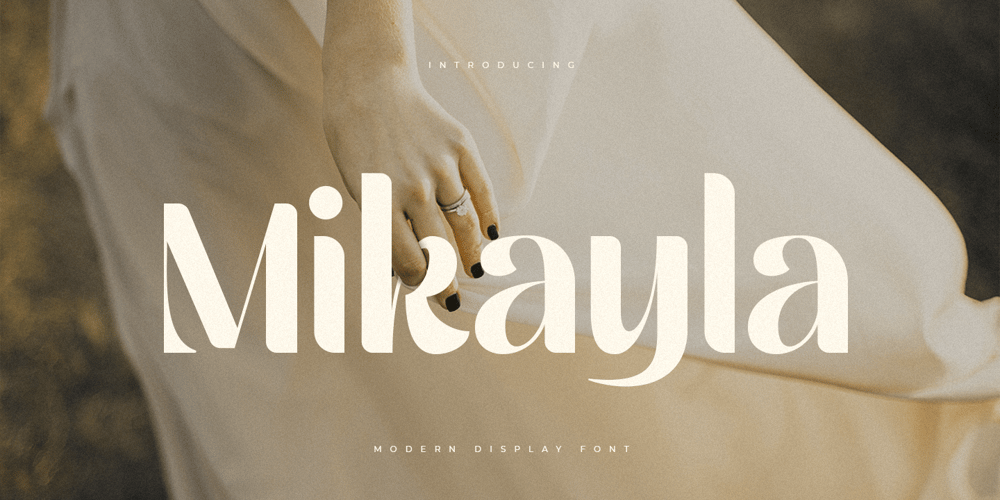
Mikayla Style Font Family was designed by Zamroni Hamzah and published by Sensatype Studio. Mikayla Style contains 1 styles and family package options. Mikayla is a Modern Display FontA new font that we created special for branding needs, with unique characters and awesome alternative characters are ready to add value of your brand. It so nice to leverage designer or product owner that need solutions to make their design look more beauty and modern. And specially for Salute font, We prepared any swash and any alternate characters to help you create unlimited variations for your creative needs.Mikayla is a Modern Display Font ready with: Any options to get creative variations (combination of Alternate and Ligature) Preview as a inspirations that you can do with Mikayla font Ready with Lowercase and Uppercase characters Wish you enjoy our font. ๐